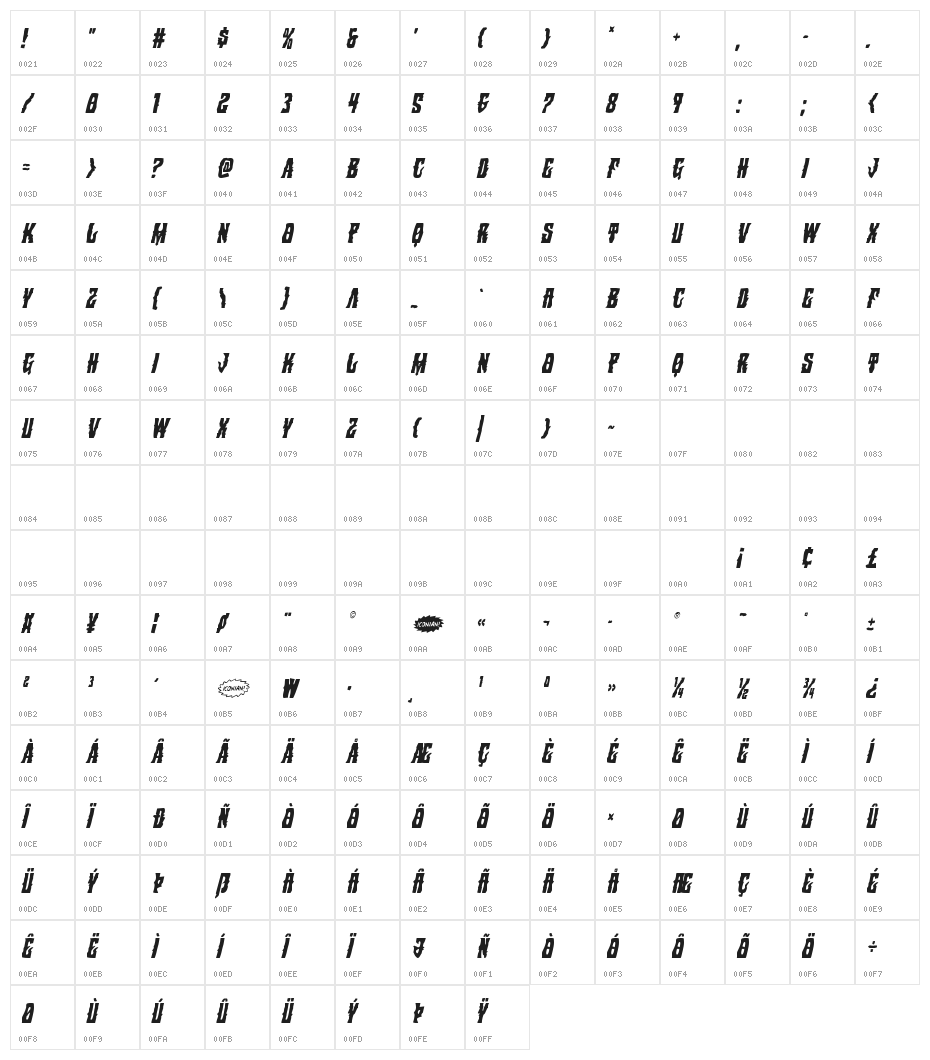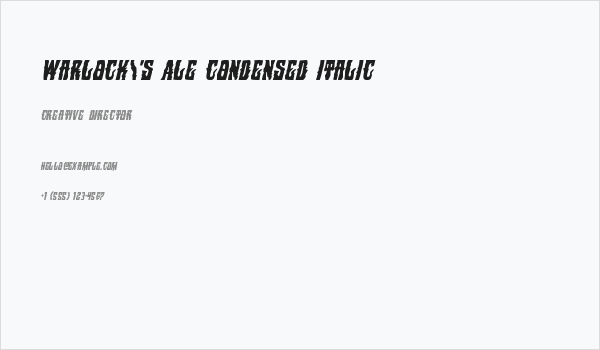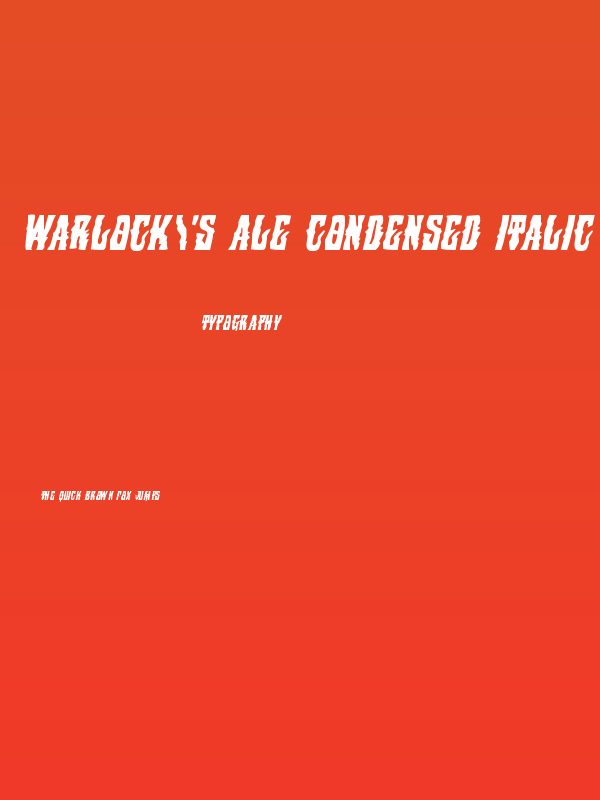
Warlock's Ale Condensed Italic Font
Warlock's Ale Condensed Italic Description
This font features a bold and condensed style with a distinct italic slant, giving it a dynamic and energetic appearance. The characters are sharply angled with unique, jagged edges that convey a sense of mystery and intrigue. The uppercase and lowercase letters maintain a consistent style, with the uppercase being slightly more pronounced. Numbers and special characters follow the same design principles, ensuring a cohesive look across all text elements. The font's boldness and condensed nature make it stand out, while the italic slant adds a touch of sophistication and movement.
| Proposed Projects | Ideal for use in fantasy-themed projects, Halloween promotions, video game titles, or any creative work requiring a mysterious and bold typeface. |